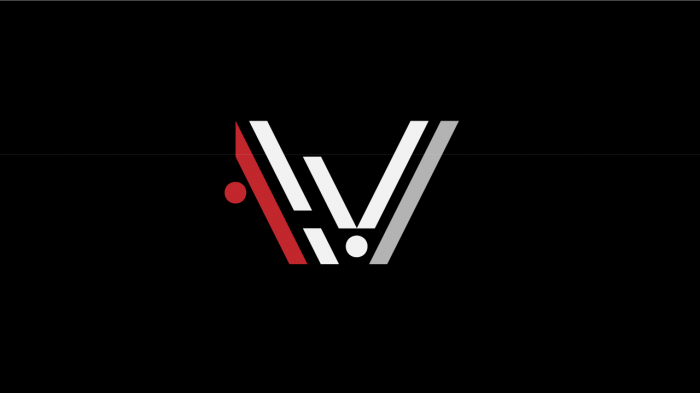
Unbroke 2 is an update on my earlier Unbroke. It is a san-serif headline display typeface inspired by the prensent and the absent; the broken and whole. It is minimalist heavily derivative of stencil typography.